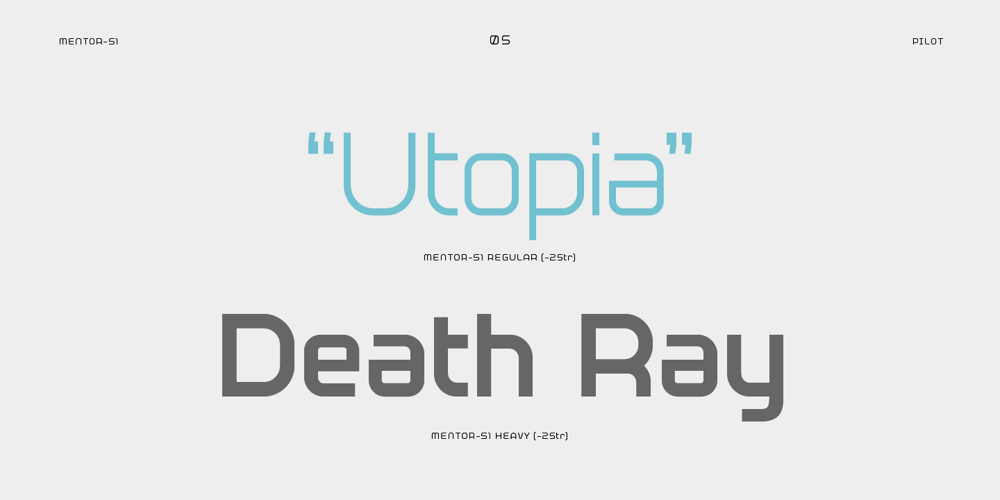
Mentor-51 Font Family was designed by Bill Concannon and published by Pilot. Mentor-51 contains 4 styles and family package options. While developing one of their own IP’s, Pilot needed a typeface which reflected a developing story with a science fiction theme. Mentor-51 is proudly the first release born out of this IP. It was created by designer and Pilot co-founder Bill Concannon and Brendan Keohane, a graphic designer at the studio. Pilot, located at Boston Design Center, is home to graphic designers and illustrators who enjoy the mix of the two disciplines. Pilot’s primary goal is effective brand development through telling brand stories using strategy and art.